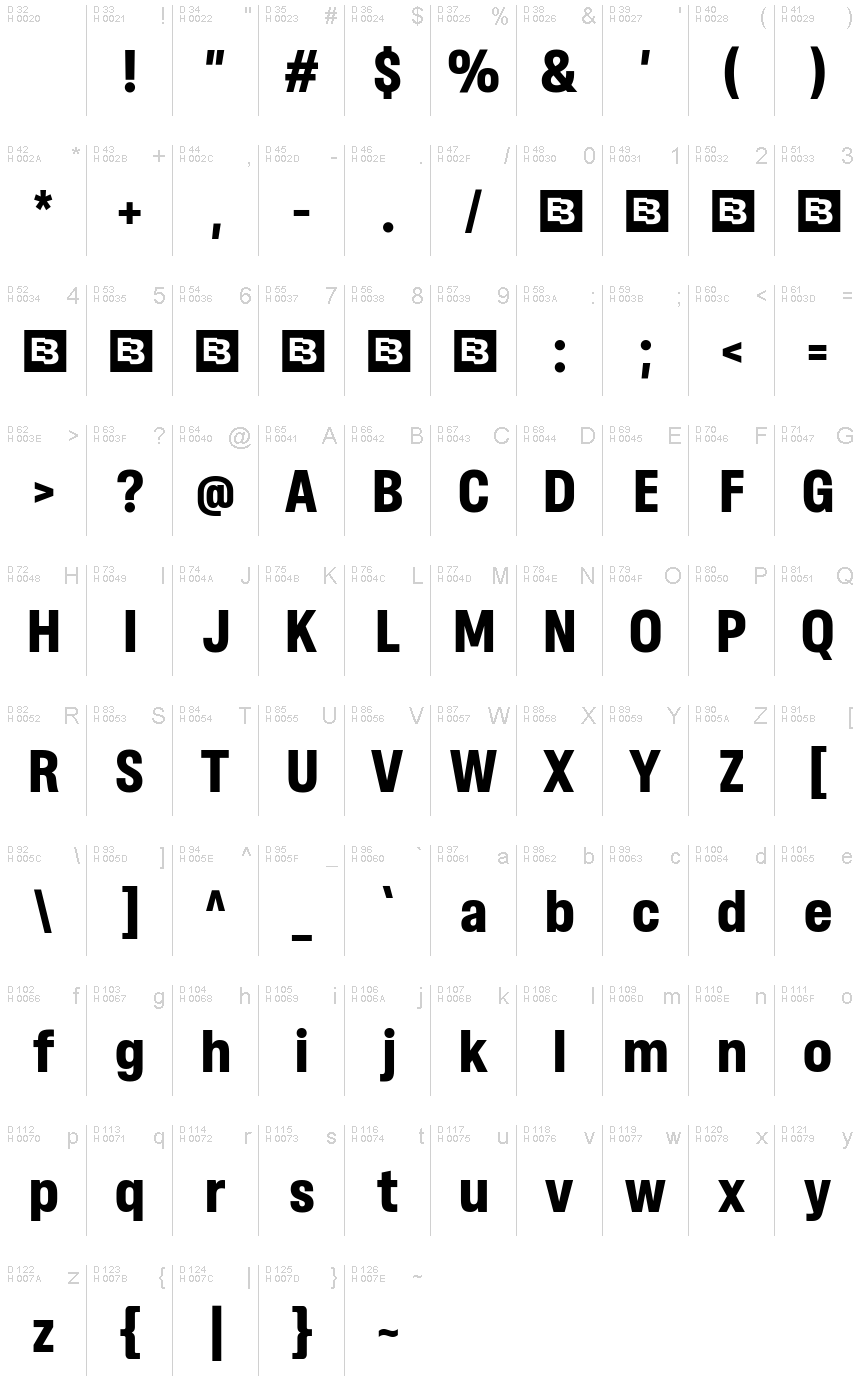
Gibstone Trial Extra Bold
Gibstone, a striking sans-serif font crafted by Eko Bimantara, exudes a bold and confident presence. Its extra-bold weight commands attention, while the clean, geometric letterforms convey a sense of modern elegance. The strong, angular lines and distinctive character shapes lend the font an air of sophistication, making it well-suited for headings, branding, and eye-catching display purposes.
This versatile font can elevate a wide range of design applications, from print media and packaging to digital interfaces and signage. Its robust and legible qualities make it an excellent choice for titles, logos, and visual identities that require a powerful, attention-grabbing aesthetic. Gibstone's versatility also allows it to shine in editorial layouts, product labeling, and even large-scale environmental graphics, where its bold presence can effectively capture the audience's attention.